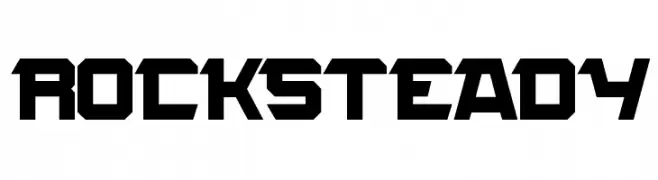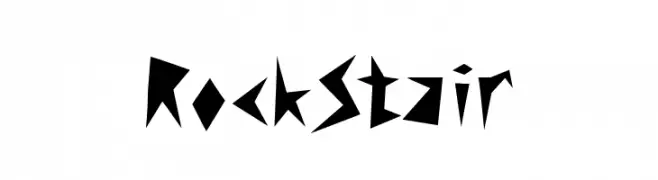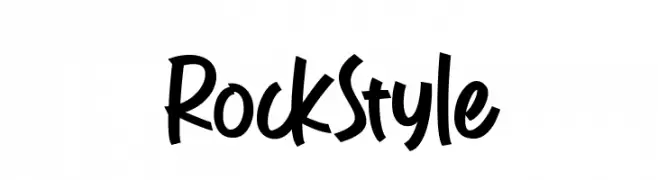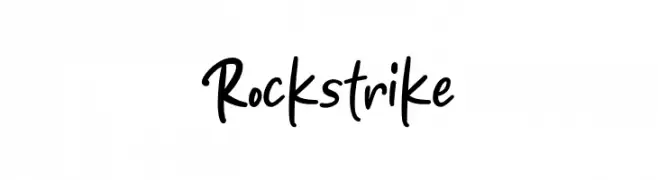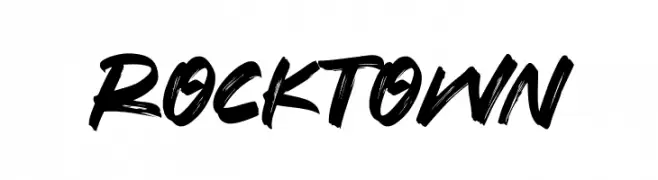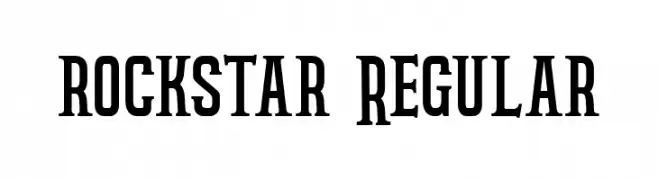
A bold, rugged font with thick, angular letters and a strong visual impact.
A bold, jagged font with an angular, rock-like appearance.
A bold, rugged font with jagged, rock-like edges.
A dynamic handwritten font with fluid strokes and a rustic texture.
A bold, textured font with a rugged, rock-like appearance.
A bold, angular font with sharp, jagged edges for a dynamic look.
A bold, serif font with elongated serifs and a commanding presence.
A bold, geometric font with a futuristic and industrial style.
A bold, edgy font with sharp, angular lines and a modern, rebellious style.